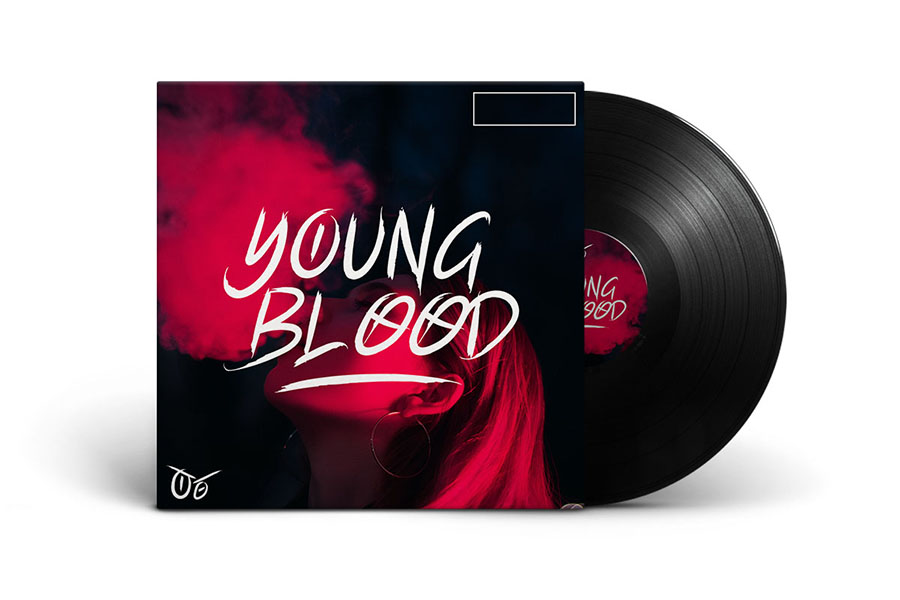
Hustle Hardcore Font Demo
Free Brush Font
Introducing the Hustle Hardcore Font Demo. This typeface was created for the gothic style to make your designs bright and unique. In addition to the Gothic style, this font can be used in such design projects as Card, Apparel, Logotype, Book, Letter, and others. If you wish to access more features and use it for commercial work, go get the full version.
Author: Youtlabs Studio